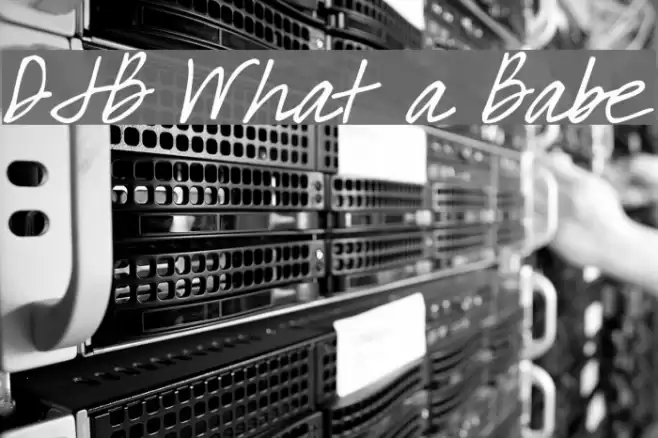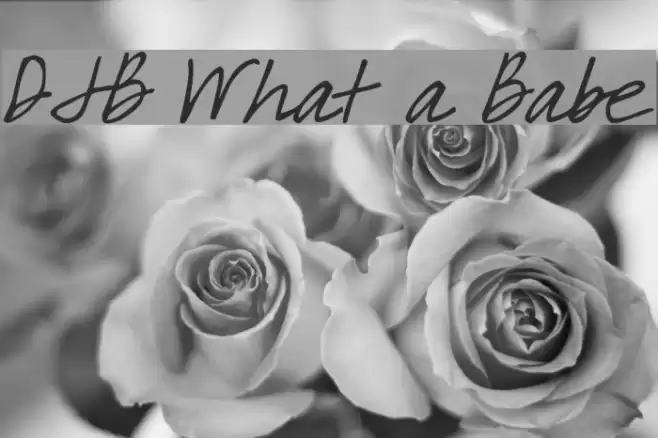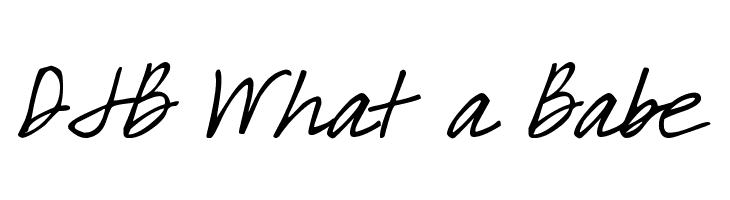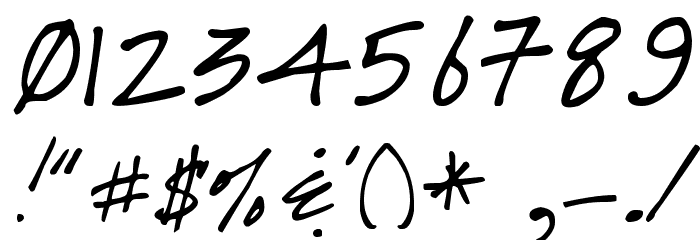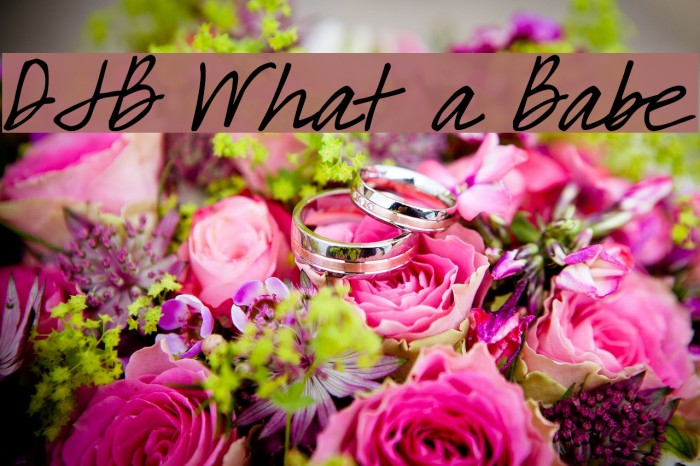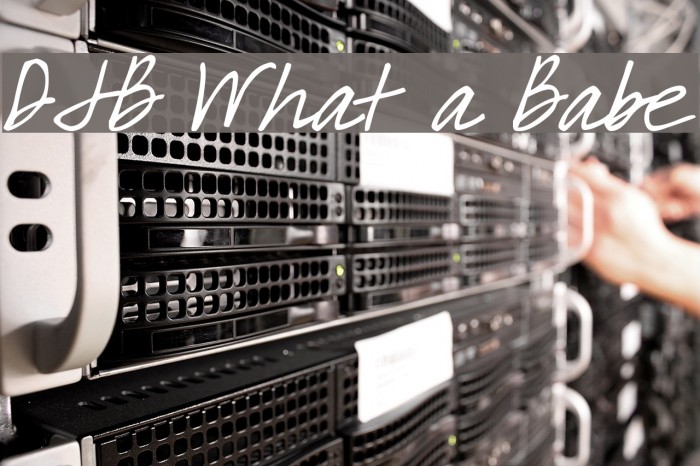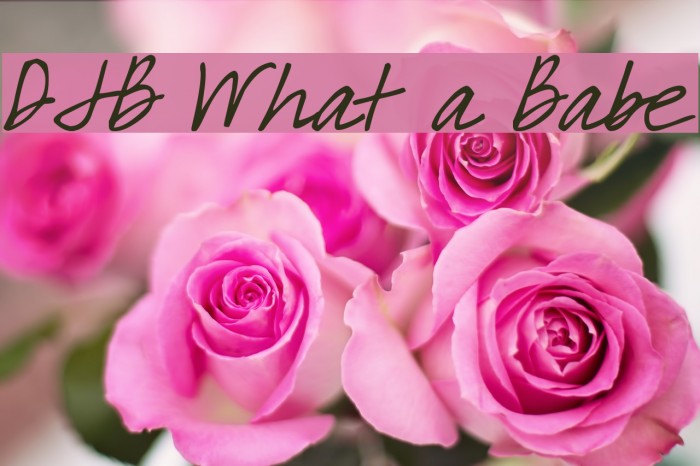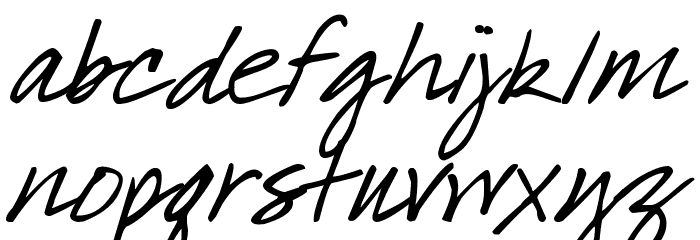
DJB What a Babe Font
DJB What a Babe Description
This font exudes a playful and casual handwritten style, characterized by its fluid and dynamic strokes. Each letter is crafted with a sense of spontaneity, giving it a lively and informal appearance. The uppercase letters are bold and slightly slanted, while the lowercase letters maintain a consistent flow, enhancing readability. The numerals and special characters are designed to match the overall whimsical aesthetic, making them suitable for creative projects. The font's unique charm lies in its ability to convey a sense of personal touch and authenticity, making it ideal for projects that require a friendly and approachable tone.
A playful, handwritten font with fluid, dynamic strokes and a casual style from Uncategorized fonts.
- Proposed Projects: Ideal for greeting cards, personal invitations, social media graphics, and creative branding projects.
- Overall Style: Casual
- Use Case: Headlines, Logos, Social Media Graphics